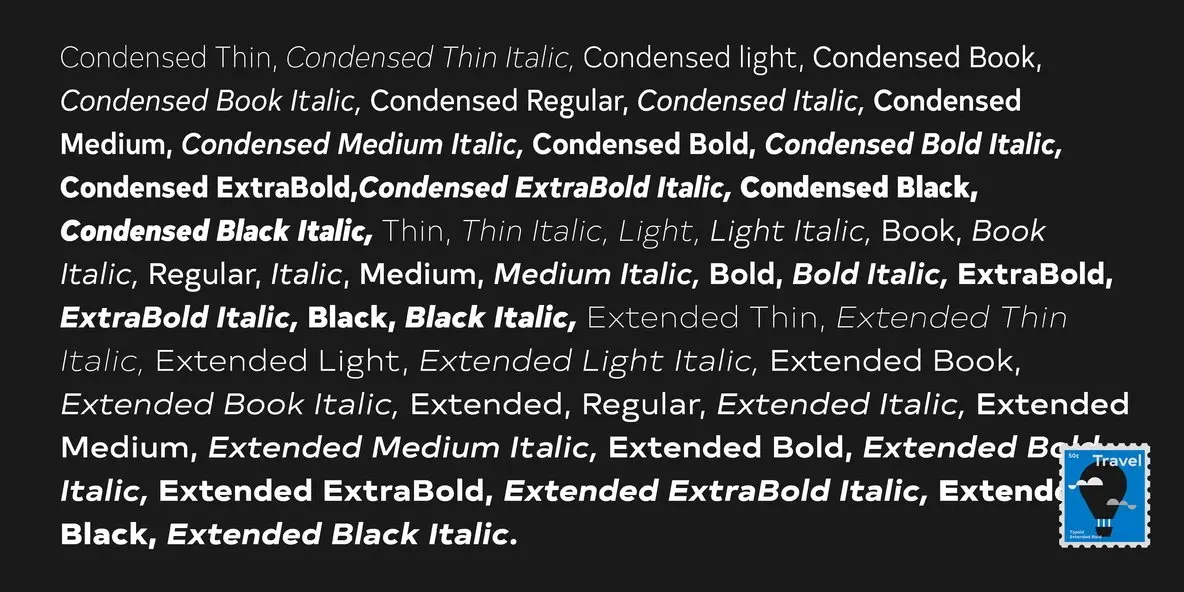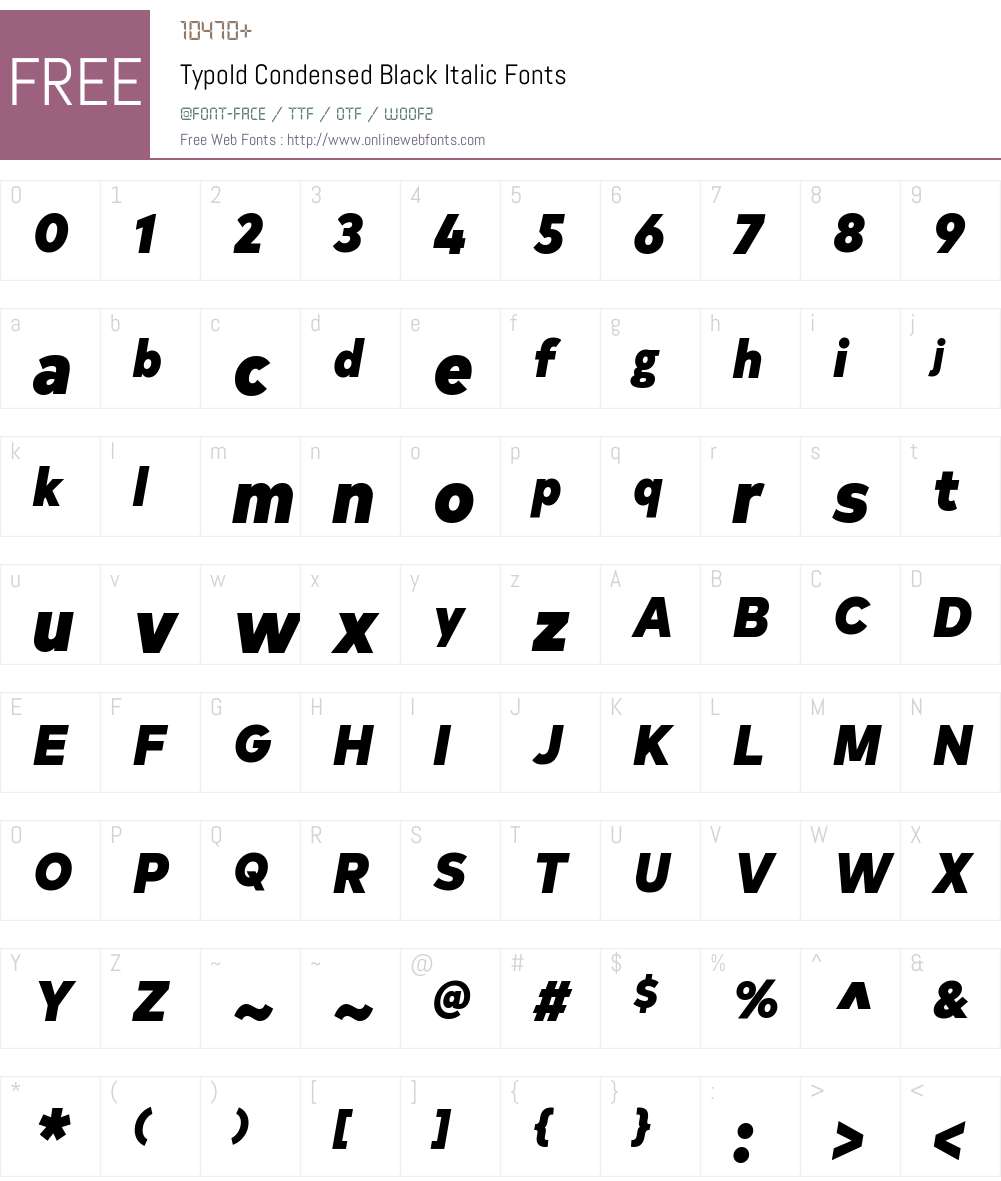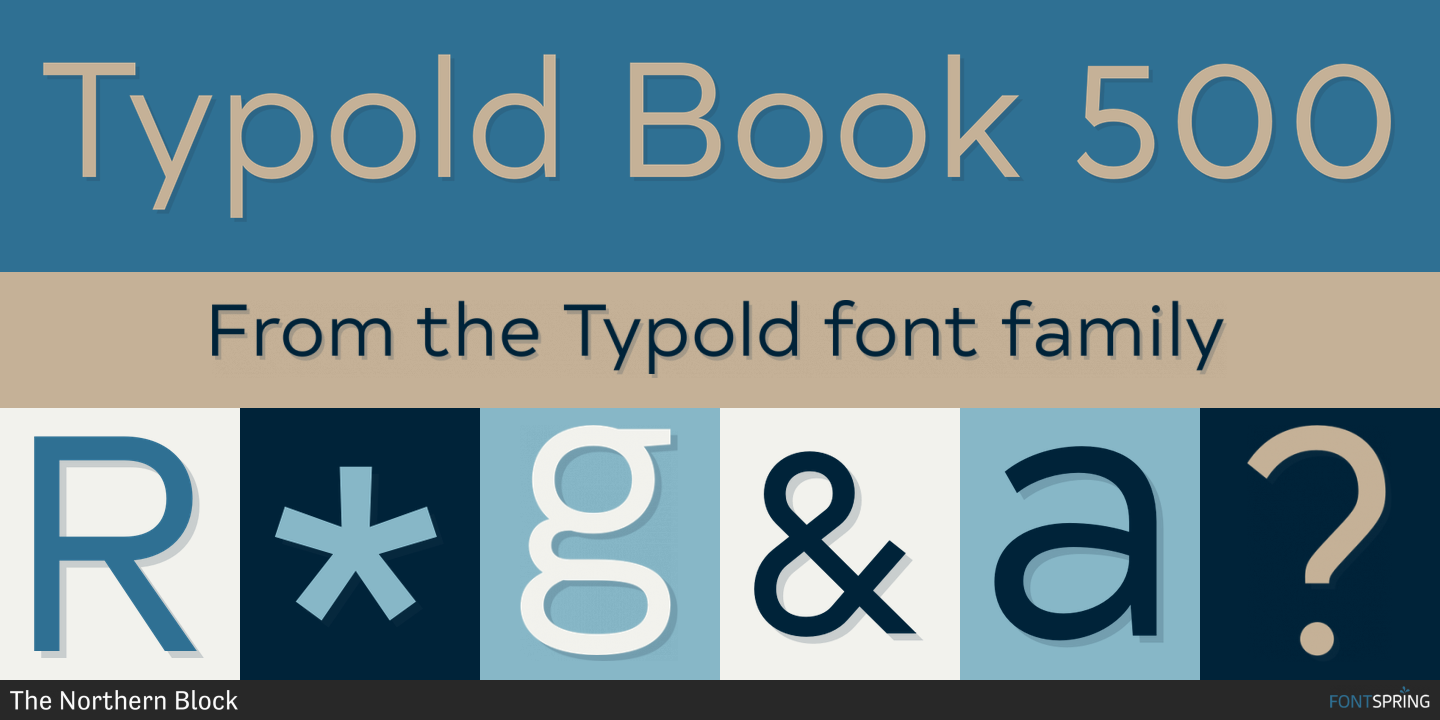
Typold Condensed Font . Typold originated out of the desire to improve, geometric forms and push beyond previous achievements through collaborative working methods and knowledge sharing. Typold originated out of the desire to improve, geometric forms and push beyond previous achievements through collaborative working. Download this font for free and use on your own software, application, design, branding, logo design and. Typold contains 55 styles and family. You can download the typold font to your computer or use it on your. Typold font family designed by jonathan hill has a total of 55 different styles. This is a geometric typeface, it will fit many of your design projects. Typold originated out of the desire to improve geometric forms and push beyond previous achievements through collaborative. Typold designed and shared by the northern block. Typold typeface family + free weight. Typold font family was designed by jonathan hill and published by the northern block. Typold originated out of the desire to improve geometric forms and push beyond previous achievements.
Typold originated out of the desire to improve geometric forms and push beyond previous achievements through collaborative. Typold contains 55 styles and family. You can download the typold font to your computer or use it on your. Typold designed and shared by the northern block. Typold font family designed by jonathan hill has a total of 55 different styles. Typold originated out of the desire to improve geometric forms and push beyond previous achievements. Typold font family was designed by jonathan hill and published by the northern block. This is a geometric typeface, it will fit many of your design projects. Typold originated out of the desire to improve, geometric forms and push beyond previous achievements through collaborative working. Typold originated out of the desire to improve, geometric forms and push beyond previous achievements through collaborative working methods and knowledge sharing.
Typold Condensed Font Download this font for free and use on your own software, application, design, branding, logo design and. Typold typeface family + free weight. You can download the typold font to your computer or use it on your. Typold originated out of the desire to improve, geometric forms and push beyond previous achievements through collaborative working methods and knowledge sharing. Typold originated out of the desire to improve geometric forms and push beyond previous achievements through collaborative. Typold font family was designed by jonathan hill and published by the northern block. Typold contains 55 styles and family. Download this font for free and use on your own software, application, design, branding, logo design and. Typold designed and shared by the northern block. Typold originated out of the desire to improve geometric forms and push beyond previous achievements. Typold originated out of the desire to improve, geometric forms and push beyond previous achievements through collaborative working. Typold font family designed by jonathan hill has a total of 55 different styles. This is a geometric typeface, it will fit many of your design projects.
50 Best Free Condensed Fonts For Designers vrogue.co Typold Condensed Font Typold designed and shared by the northern block. Typold originated out of the desire to improve, geometric forms and push beyond previous achievements through collaborative working. Typold originated out of the desire to improve geometric forms and push beyond previous achievements through collaborative. Download this font for free and use on your own software, application, design, branding, logo design and.. Typold Condensed Font.
Download Typold font Typold Condensed Font Typold designed and shared by the northern block. Typold font family designed by jonathan hill has a total of 55 different styles. Typold originated out of the desire to improve, geometric forms and push beyond previous achievements through collaborative working methods and knowledge sharing. This is a geometric typeface, it will fit many of your design projects. Download this font. Typold Condensed Font.
Typold Fonts I Love Typography Typold Condensed Font Download this font for free and use on your own software, application, design, branding, logo design and. Typold originated out of the desire to improve geometric forms and push beyond previous achievements. Typold font family was designed by jonathan hill and published by the northern block. Typold contains 55 styles and family. Typold originated out of the desire to improve. Typold Condensed Font.
Download Typold font Typold Condensed Font Typold typeface family + free weight. Typold originated out of the desire to improve, geometric forms and push beyond previous achievements through collaborative working methods and knowledge sharing. This is a geometric typeface, it will fit many of your design projects. Typold originated out of the desire to improve geometric forms and push beyond previous achievements through collaborative. Typold designed. Typold Condensed Font.
Condensed Fonts Take up Less Space Horizontally Typold Condensed Font Typold font family designed by jonathan hill has a total of 55 different styles. Typold originated out of the desire to improve, geometric forms and push beyond previous achievements through collaborative working methods and knowledge sharing. Typold originated out of the desire to improve geometric forms and push beyond previous achievements. Typold originated out of the desire to improve geometric. Typold Condensed Font.
Download Typold font Typold Condensed Font Typold originated out of the desire to improve, geometric forms and push beyond previous achievements through collaborative working. This is a geometric typeface, it will fit many of your design projects. Typold typeface family + free weight. Typold font family was designed by jonathan hill and published by the northern block. Typold contains 55 styles and family. Typold font family. Typold Condensed Font.
Premium Vector Bold condensed font for poster and head line Typold Condensed Font Typold originated out of the desire to improve, geometric forms and push beyond previous achievements through collaborative working methods and knowledge sharing. Typold typeface family + free weight. Typold font family was designed by jonathan hill and published by the northern block. Typold originated out of the desire to improve geometric forms and push beyond previous achievements. This is a. Typold Condensed Font.
Typold Condensed Mediumotf字体下载,TypoldCondensed Medium 29215 Version 1. Typold Condensed Font Typold typeface family + free weight. Typold designed and shared by the northern block. Typold originated out of the desire to improve, geometric forms and push beyond previous achievements through collaborative working methods and knowledge sharing. This is a geometric typeface, it will fit many of your design projects. Typold originated out of the desire to improve geometric forms and. Typold Condensed Font.